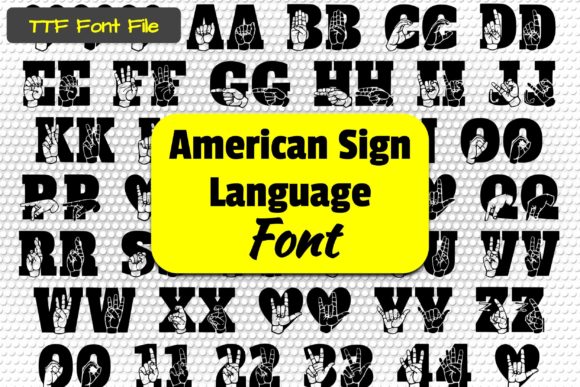
Calling all designers! If you're searching for the perfect font to make your designs pop, look no further than the Able Lingo ASL 4 font. This beautiful dingbats font will add a touch of whimsy and fun to any project.
The Able Lingo ASL 4 font is perfect for adding a personal touch to your designs. Whether you're creating a food menu, poster, flyer, or print, this font will help you make a statement. With its unique and eye-catching characters, the Able Lingo ASL 4 font is sure to turn heads.